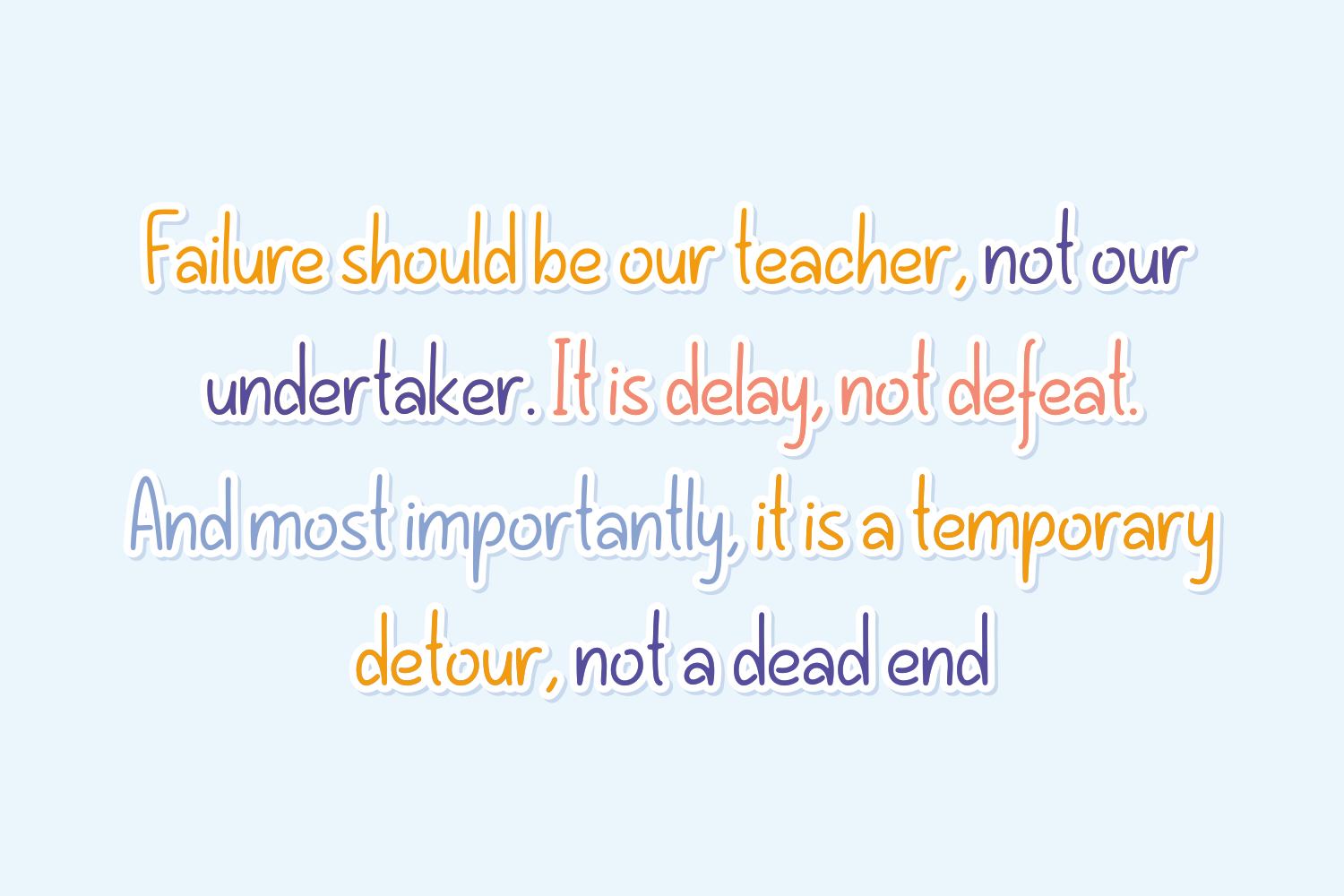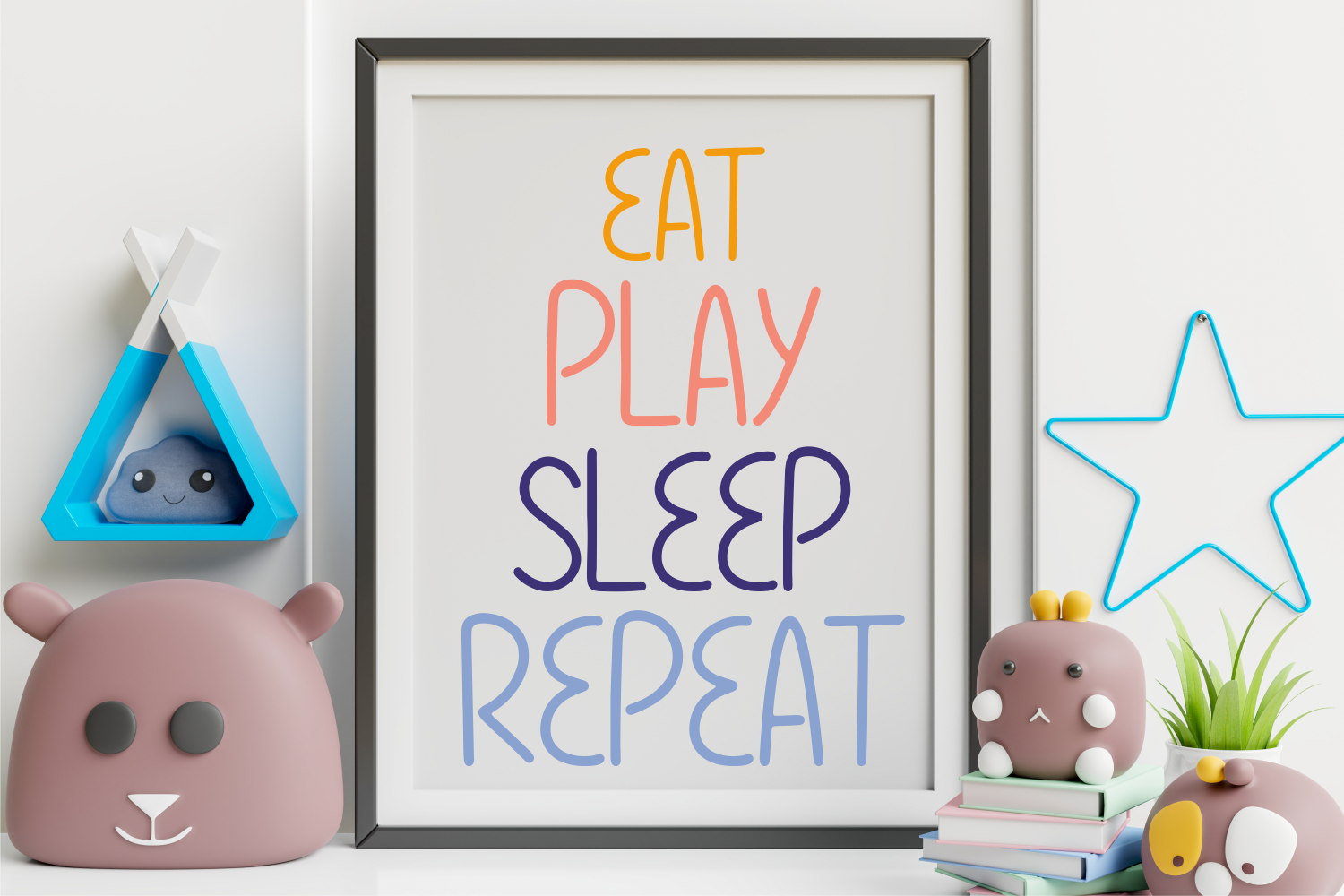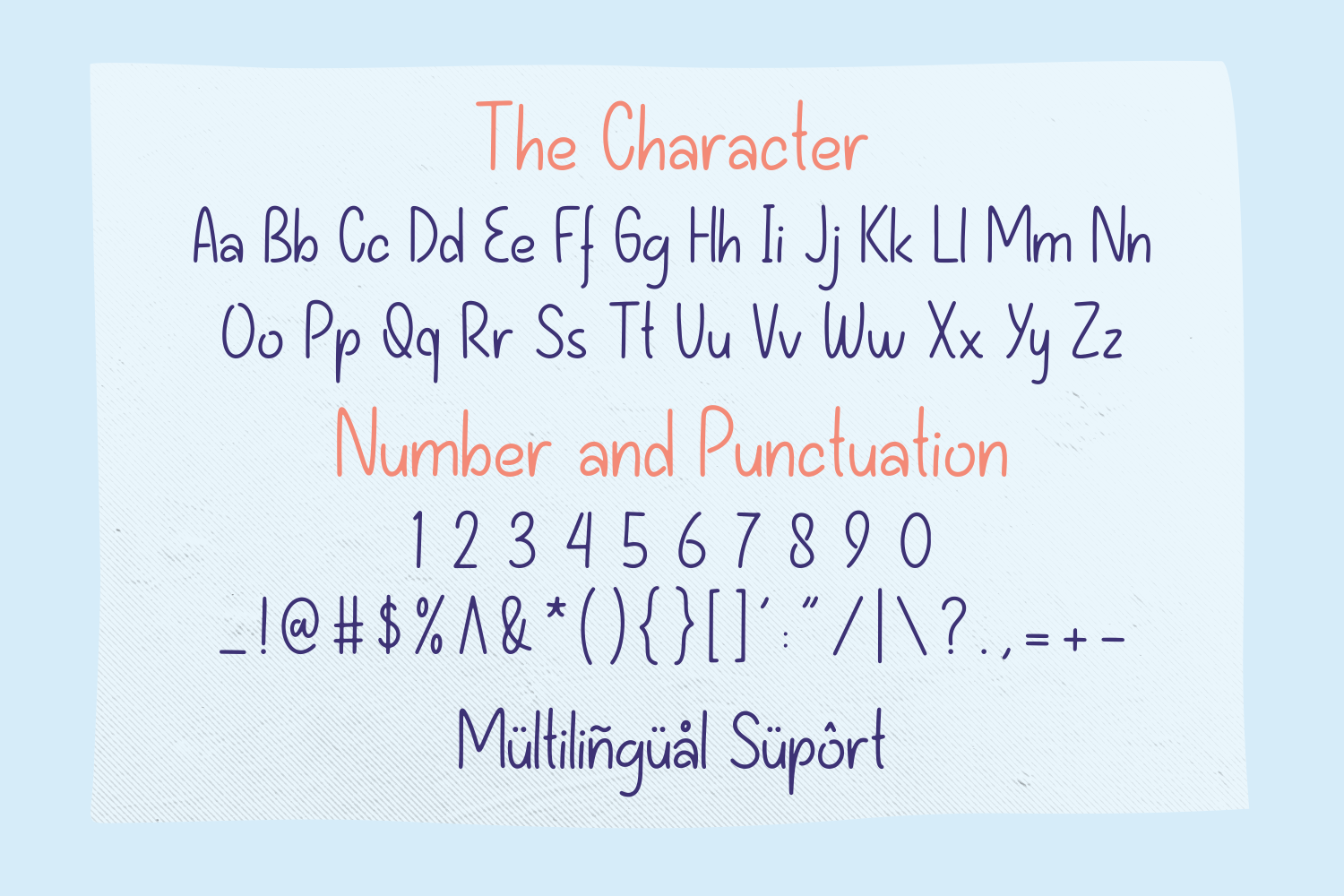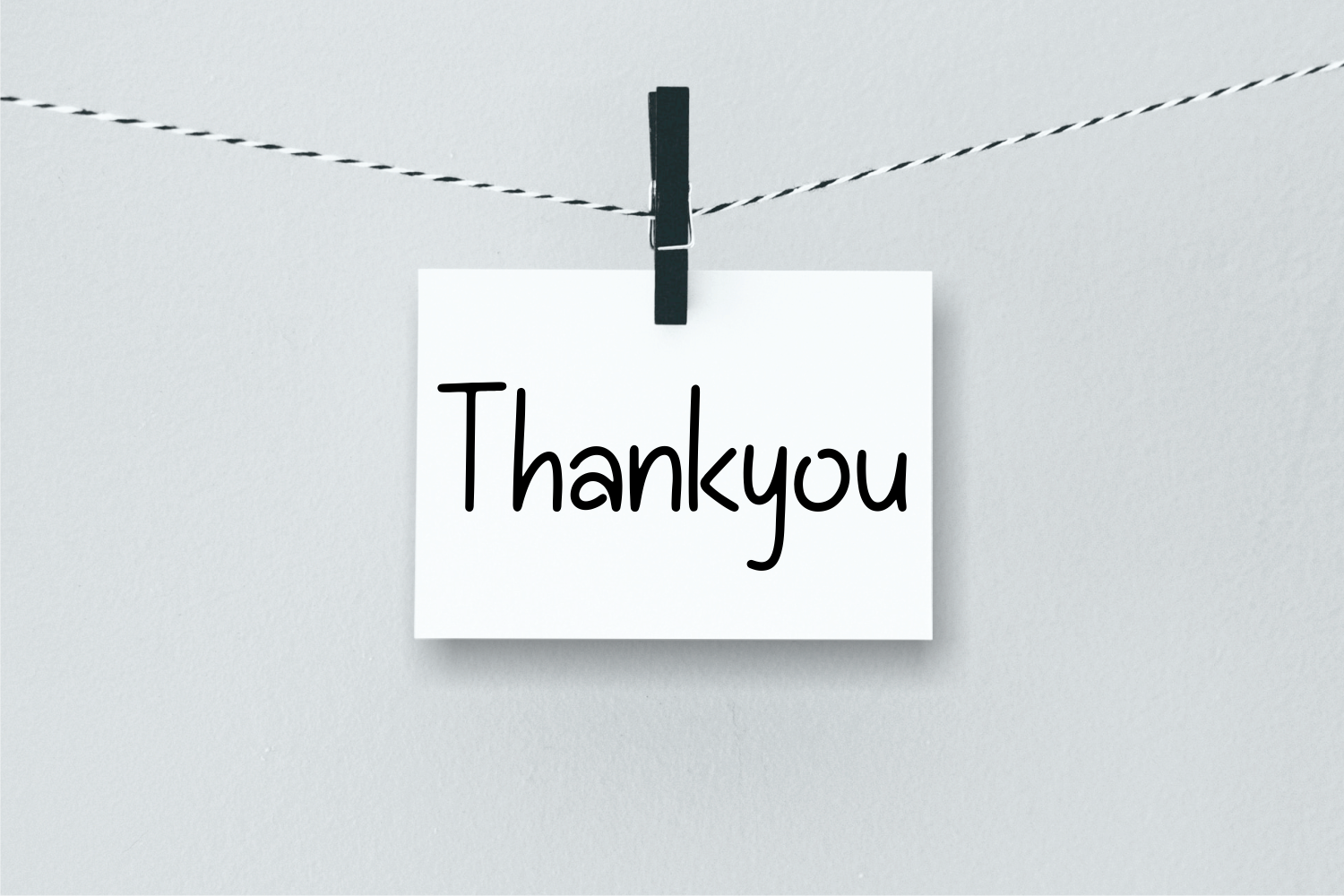
Craft Candy Font
Craft Candy Display Font is a fancy and elegant handcrafted font that create to impress your audience and make your branding shine.
Make your projects dance with this elegant and wonderful font wherever you use it. Use it for your headings, logos, ads, printed quotes, packaging, and even your website or social media branding.